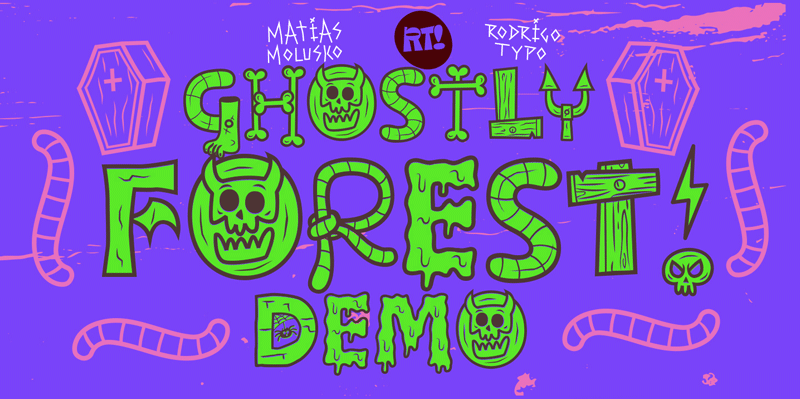
Font name: | Ghostly Forest |
Author: | RodrigoTypo |
Note by RodrigoTypo | |
Ghostly Forest Year: 2022-2023 Author: Matias Molusko - Rodrigo Araya Concept: Ghostly Forest, is an entertaining font that has many options such as ligatures, alternatives, layers, it is special for titles related to halloween or informal design, it contains its extended version as a basic one. ---- Buy: https://www.myfonts.com/collections/ghostly-forest-font-rodrigotypo https://www.fontspring.com/fonts/rodrigo-typo/ghostly-forest |